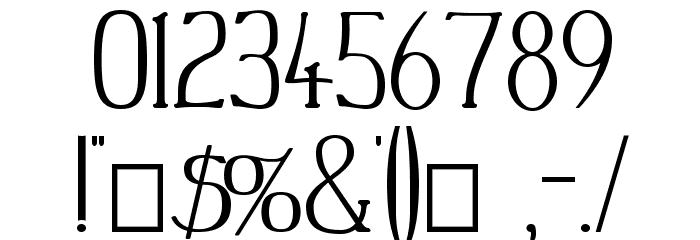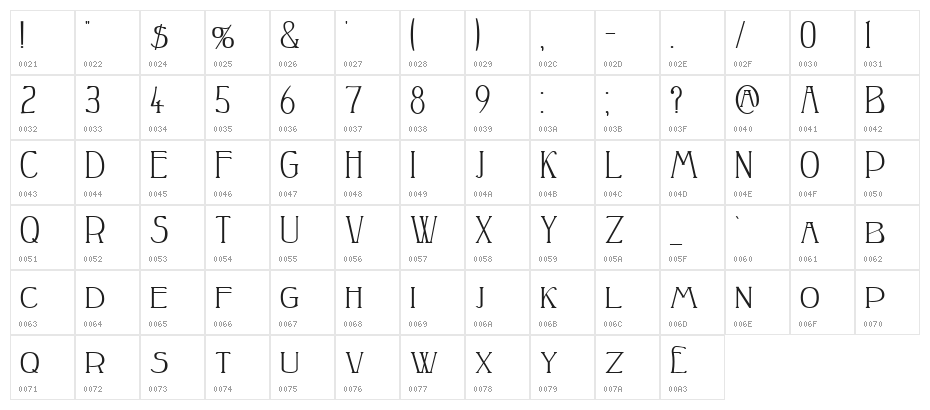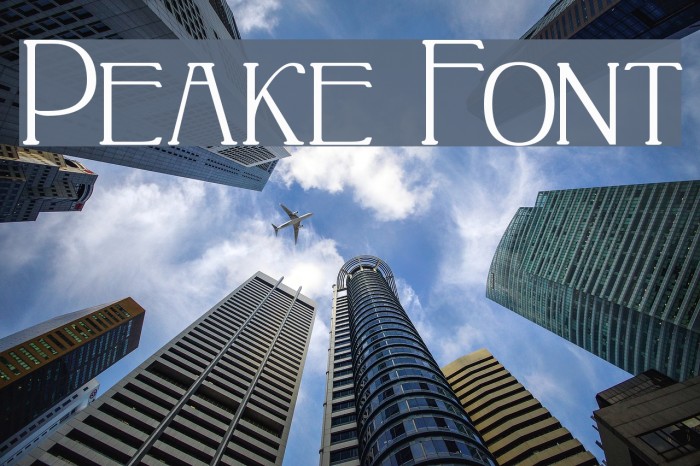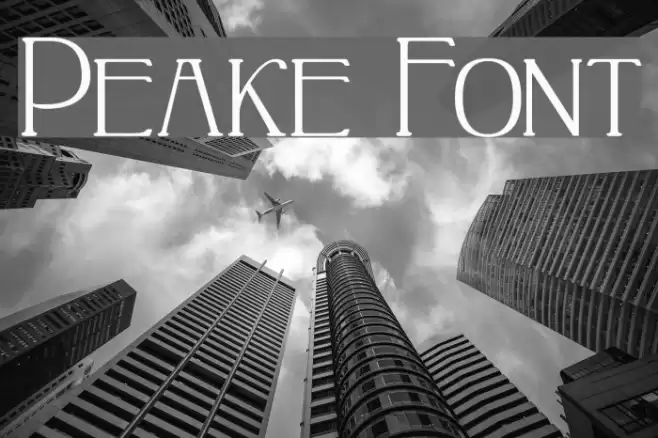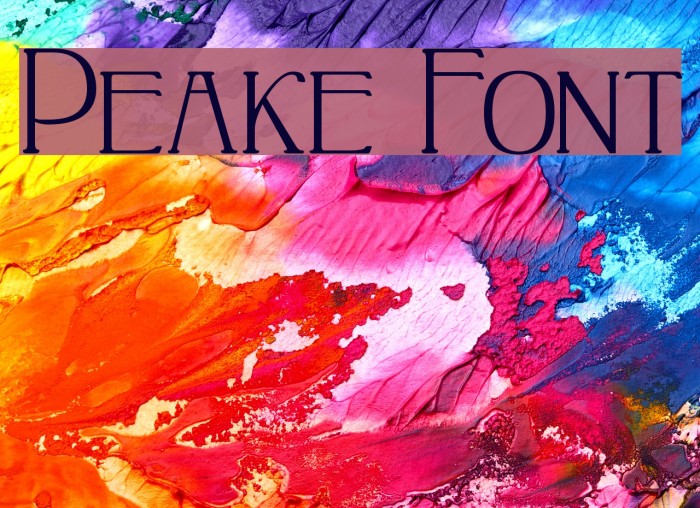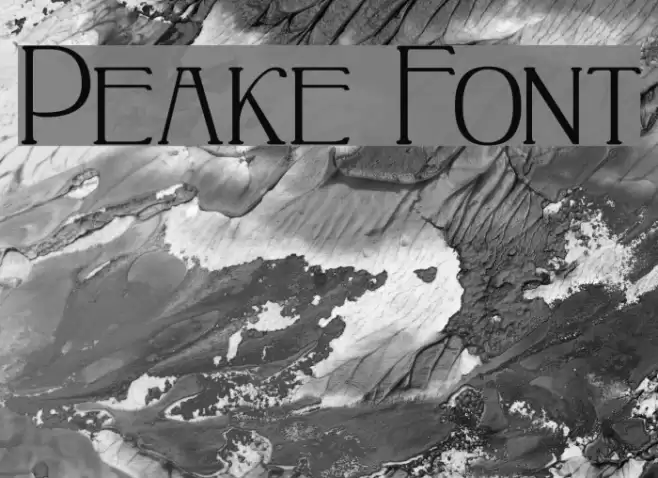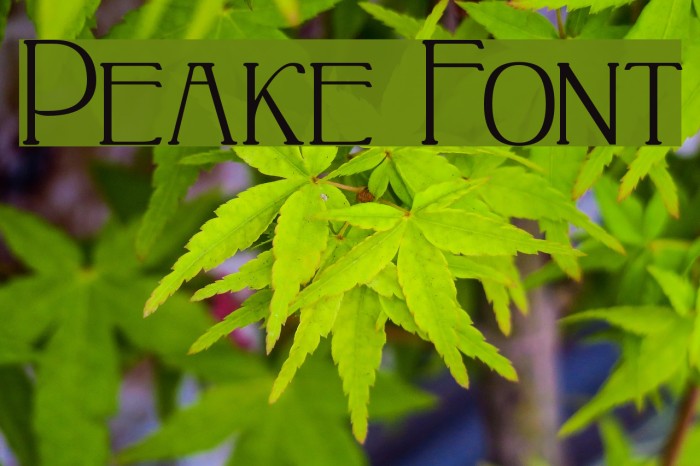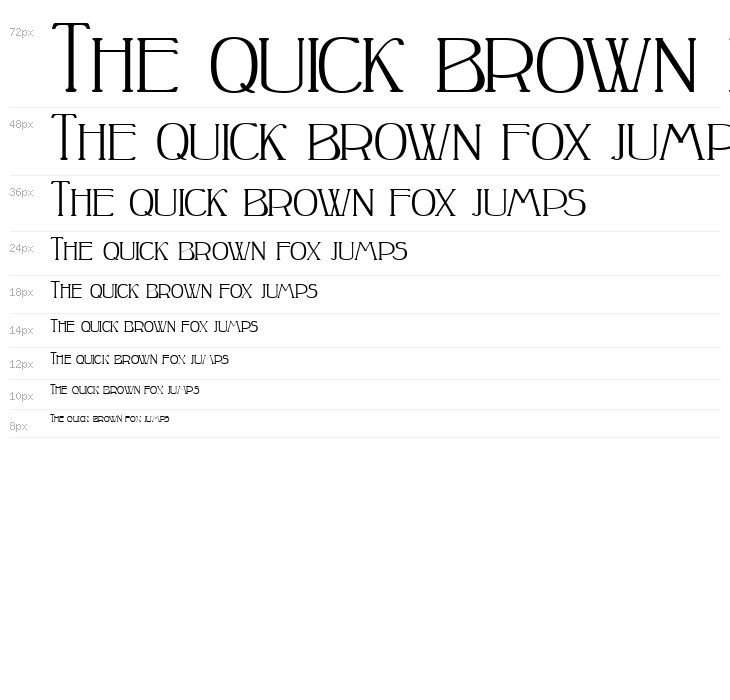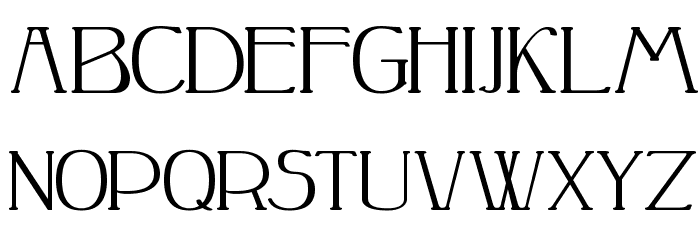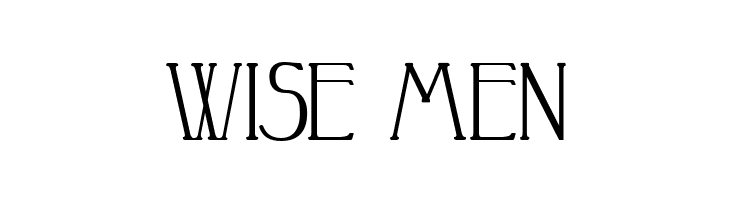
Peake Font
Peake Description
This font features a unique blend of modern and vintage aesthetics, characterized by its tall, narrow letterforms and subtle serifs. The uppercase letters display a distinct elegance with elongated vertical strokes and slightly curved terminals, giving it a sophisticated yet approachable feel. The lowercase letters maintain a consistent style, with a harmonious balance between straight lines and gentle curves. The numerals are designed with a similar attention to detail, ensuring readability and style. Special characters are crafted to match the overall design, making this font versatile for various applications.
Overall StyleModern Vintage
Use CaseHeadlines, Logos, Editorial Design
Proposed ProjectsIdeal for branding, editorial design, and luxury packaging where elegance and readability are key.